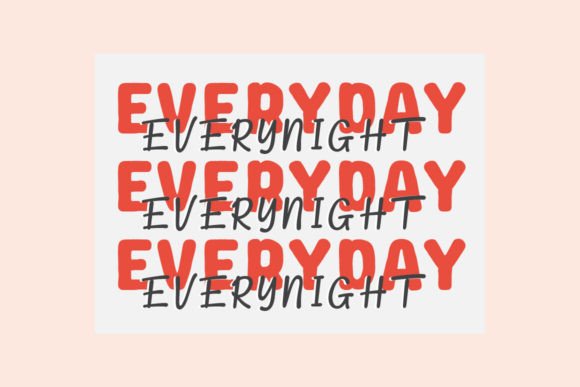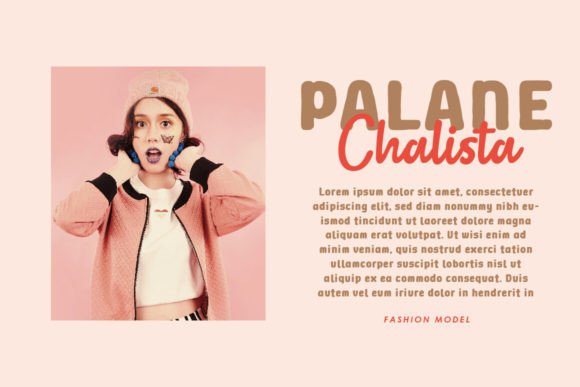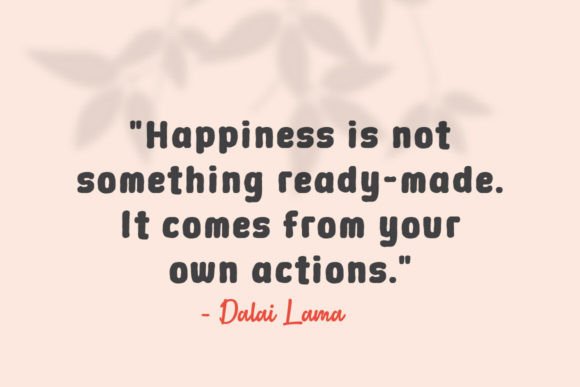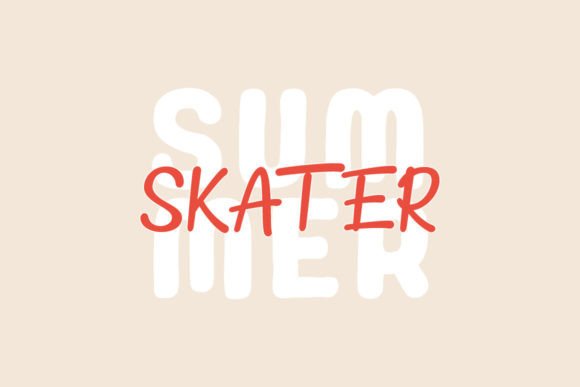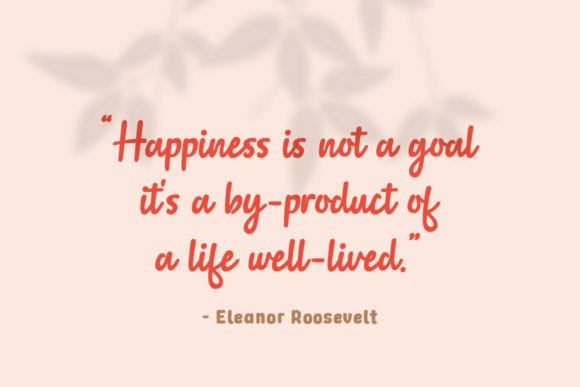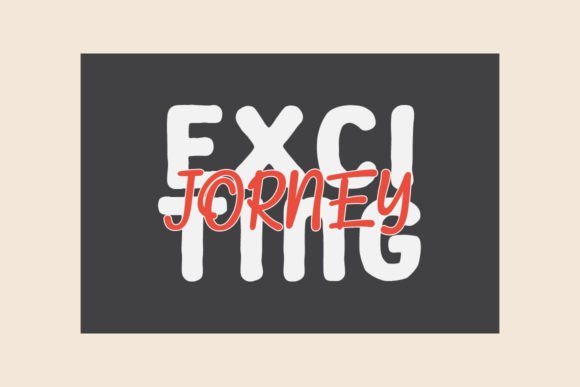
Introducing Good Vibes Duo Font: Elevate Your Designs with a Perfect Blend of Style and Charm
In the world of design, fonts play a crucial role in conveying the message and aesthetic of a project. With the right font duo, designers and crafters can add a touch of personality and warmth to their creations, making them stand out from the crowd. This is where Good Vibes Duo Font comes into play – a thoughtfully crafted font combination that pairs a bold handwritten script with a hand-drawn sans serif font, creating a simple yet captivating style.
The Perfect Blend: Bold Handwritten Script and Hand-Drawn Sans Serif
Good Vibes Duo Font is a unique combination of two complementary fonts that work harmoniously together to bring a touch of creativity and charm to any design project. The bold handwritten script font adds a personal and artistic touch, while the hand-drawn sans serif font provides a clean and modern contrast. This blend of styles creates a visually appealing combination that is perfect for designers and crafters looking to add some personality to their work.
Seamless Integration for Endless Design Possibilities
One of the standout features of Good Vibes Duo Font is its seamless integration. The two fonts are designed to work together effortlessly, allowing designers to mix and match them to create stunning text combinations. Whether you’re working on a branding project, a craft design, or a digital platform, Good Vibes Duo Font provides endless possibilities for creative expression.
Adding Personality and Warmth to Your Designs
Good Vibes Duo Font is all about adding a touch of personality and warmth to your designs. The bold handwritten script font is perfect for headlines, titles, and emphasis, while the hand-drawn sans serif font is ideal for body text and descriptions. This versatility makes Good Vibes Duo Font suitable for a wide range of design projects, from invitations and greeting cards to logos and branding materials.
Why Choose Good Vibes Duo Font?
Design and Craft Applications
Good Vibes Duo Font is perfect for a variety of design and craft applications, including:
- Branding and Logos: Create a lasting impression with a unique and memorable brand identity.
- Invitations and Greeting Cards: Add a personal touch to your invitations and greeting cards with a beautiful font combination.
- Digital Platforms: Elevate your digital platforms, such as websites and social media, with a fresh and modern font style.
- Craft Designs: Bring your craft designs to life with a charming and creative font duo.
In conclusion, Good Vibes Duo Font is a thoughtfully crafted font combination that brings a touch of creativity and charm to any design project. With its unique blend of bold handwritten script and hand-drawn sans serif font, Good Vibes Duo Font is perfect for designers and crafters looking to add personality and warmth to their work. Whether you’re working on a branding project, a craft design, or a digital platform, Good Vibes Duo Font is the perfect choice for elevating your designs and making them stand out from the crowd.